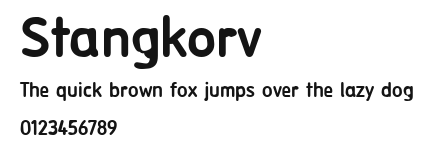
Stangkorv Preview
Stangkorv.ttf is a modern, elegant sans-serif font designed for ultimate readability and visual harmony. Perfect for branding, headlines, web design, and print materials.